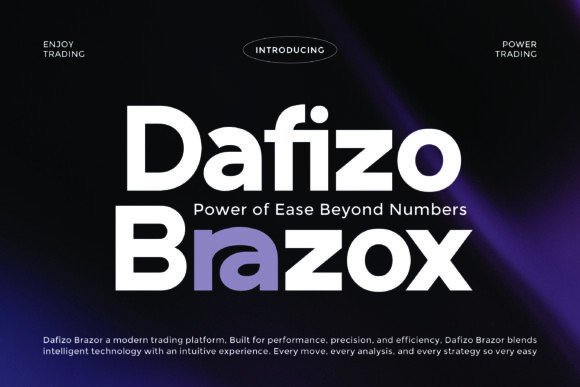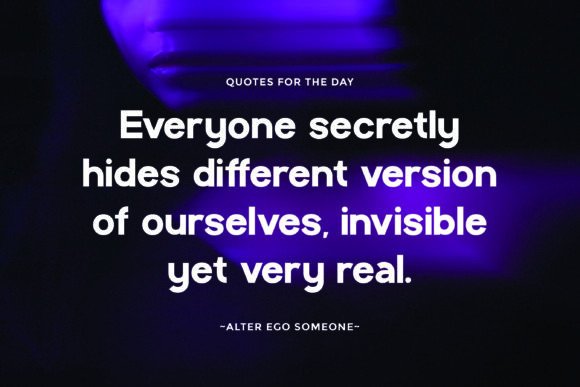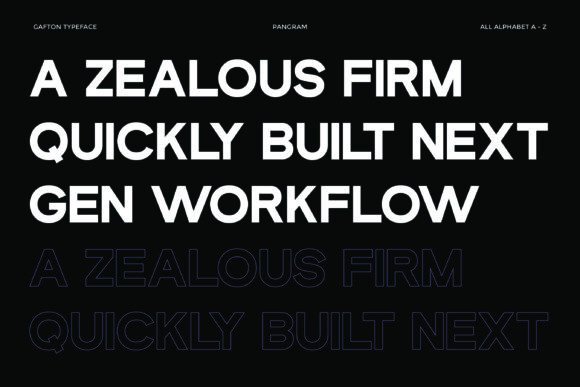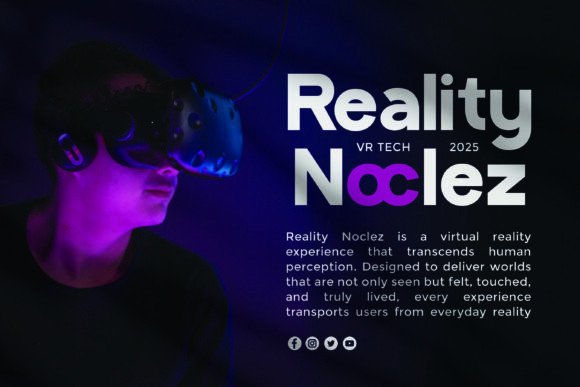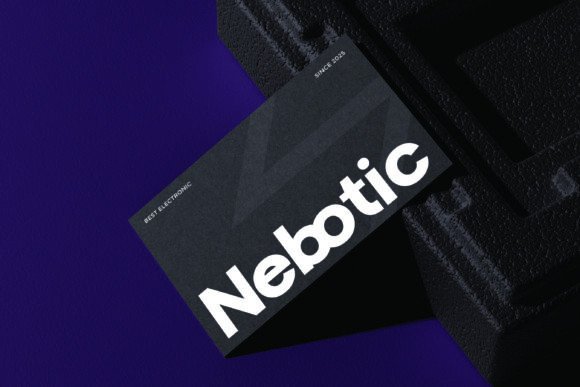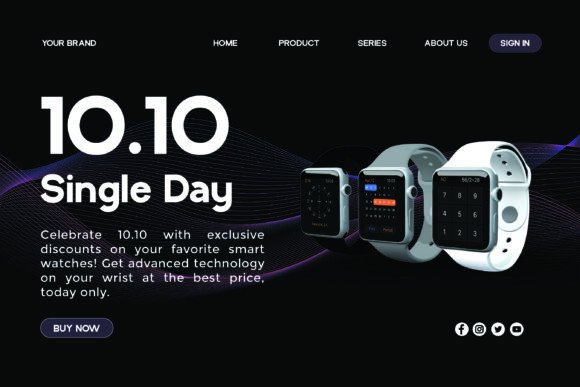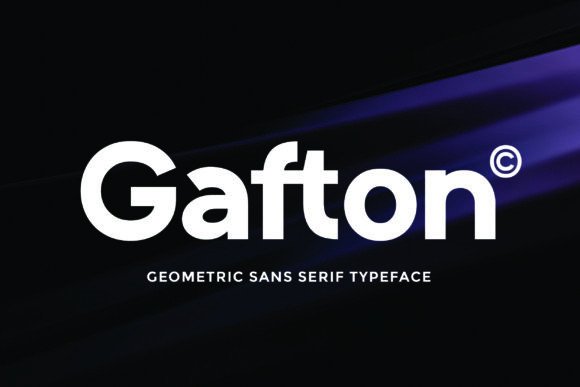
Introducing Gafton Font: The Ultimate Geometric Sans Serif for Modern Design
In the world of typography, a font can make or break a design. For designers and crafters looking for a bold, modern, and versatile typeface, Gafton Font is an excellent choice. This geometric sans serif font is specifically designed for clarity, strength, and visual impact, making it perfect for a wide range of design needs.
What is Gafton Font?
Gafton Font is a bold and modern geometric sans serif font that exudes confidence and sophistication. Built with clean shapes, balanced proportions, and smooth curves, Gafton delivers a contemporary look that is both visually striking and highly legible. Its solid construction and minimalist style make it an ideal choice for designers looking to create a strong visual impact.
Key Features of Gafton Font
- Geometric Design: Gafton Font features a geometric design with clean shapes and smooth curves, giving it a modern and sleek appearance.
- Bold and Modern: Gafton is a bold font that is perfect for headlines, titles, and emphasis. Its modern design ensures that it stands out in any design.
- High Legibility: Gafton Font is designed for clarity and legibility, making it easy to read even at small sizes.
- Versatile: Gafton is a versatile font that can be used for a wide range of design needs, from branding and logos to packaging and digital interfaces.
Use Cases for Gafton Font
Gafton Font is a versatile typeface that can be used for various design projects. Here are some use cases where Gafton excels:
- Branding: Gafton’s bold and modern design makes it perfect for branding and logos. Its geometric shape and clean lines give it a professional and sleek appearance.
- Headlines and Titles: Gafton’s bold design makes it ideal for headlines and titles. Its high legibility ensures that your message is conveyed clearly and effectively.
- Logo Design: Gafton’s unique design and geometric shape make it perfect for logo design. Its clean lines and simple shape ensure that your logo stands out.
- Packaging: Gafton’s modern design and high legibility make it suitable for packaging design. Its bold appearance ensures that your product stands out on store shelves.
- Posters: Gafton’s bold and modern design makes it perfect for posters. Its geometric shape and clean lines give it a striking appearance that grabs attention.
- Digital Interfaces: Gafton’s clean design and high legibility make it suitable for digital interfaces. Its modern appearance ensures that your digital product looks professional and sleek.
Why Choose Gafton Font?
There are many fonts available, but Gafton Font stands out for several reasons:
- Unique Design: Gafton’s geometric design and clean shape make it a unique and distinctive font.
- High Legibility: Gafton’s design ensures that it is easy to read, even at small sizes.
- Versatility: Gafton’s versatility makes it suitable for a wide range of design needs.
- Modern Appearance: Gafton’s modern design ensures that your design looks contemporary and sleek.
| Font Name | Gafton Font |
| Author | Twistystd |
In conclusion, Gafton Font is a bold and modern geometric sans serif font that is perfect for designers and crafters looking for a versatile and visually striking typeface. Its clean shape, balanced proportions, and smooth curves make it ideal for a wide range of design needs, from branding and logos to packaging and digital interfaces. With its high legibility, unique design, and modern appearance, Gafton Font is an excellent choice for any design project.